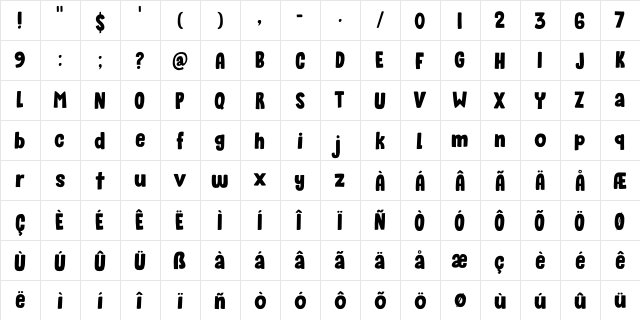
Sound Bubble DEMO Regular
Design Context for Sound Bubble DEMO Typeface
Sound Bubble DEMO trades formality for fun, with bouncy, characterful letterforms that bring warmth and energy to any project.
Well-suited to food and beverage brands with personality, educational materials, and fun-forward identities.
Font Pairing: Pairs well with a rounded or humanist sans for body copy, maintaining the friendly tone without relying on Sound Bubble DEMO to carry extended reading.
Pro Tip: Use Sound Bubble DEMO at larger display sizes where its expressive character can land. Pair with a clean, simple sans for body copy to maintain readability.